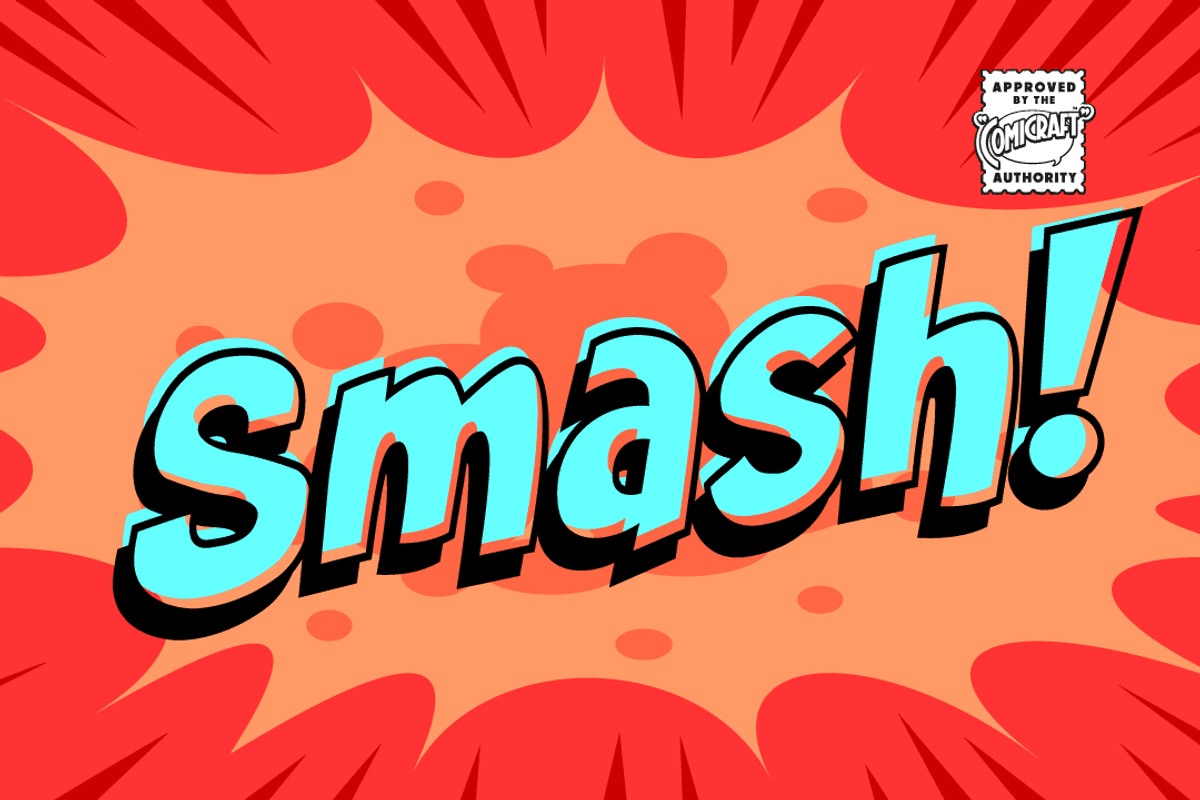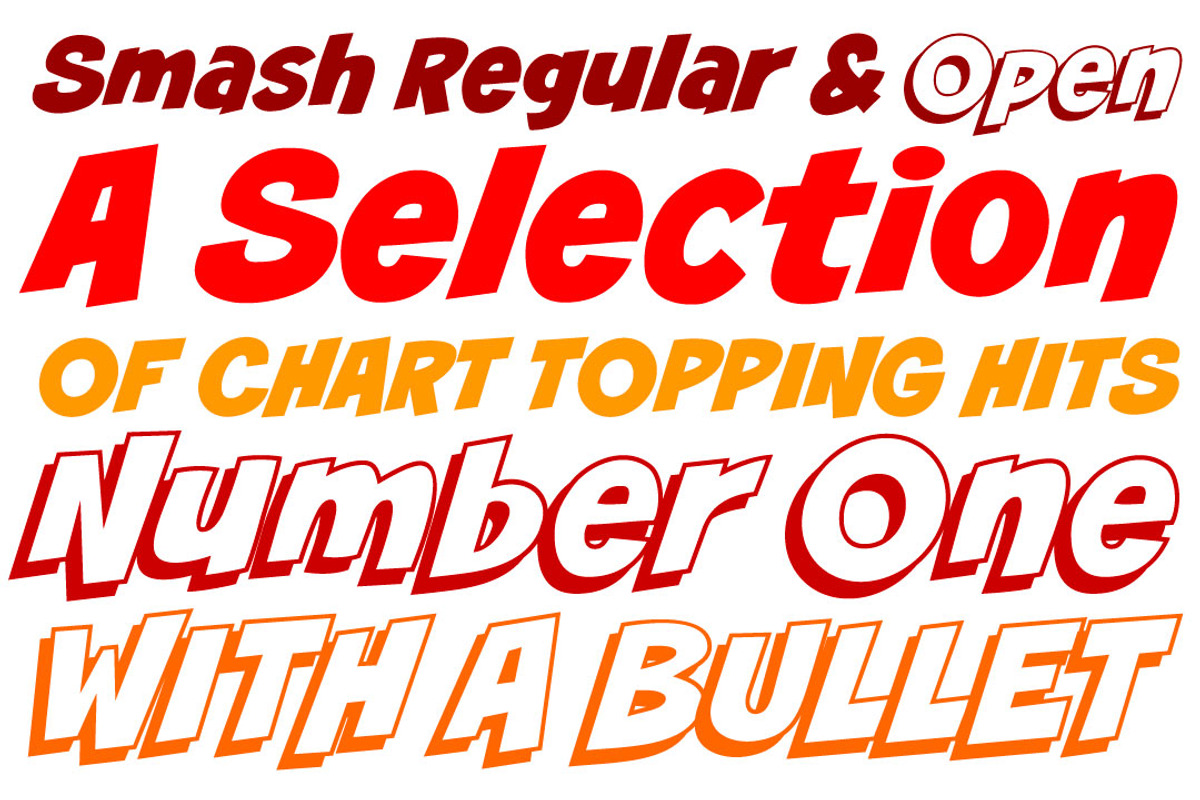
Smash - a big, loud comic book font!
Smash - a big, loud comic book font! by Comicraft Fonts is a font selected for branding, posters, packaging, typography.
Why Smash - a big, loud comic book font! is worth a look
Smash - a big, loud comic book font! by Comicraft Fonts fits naturally into Branding, posters, packaging, typography.